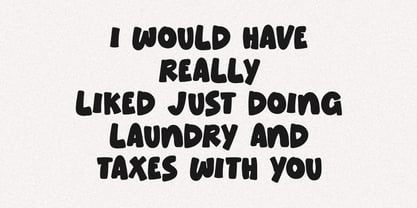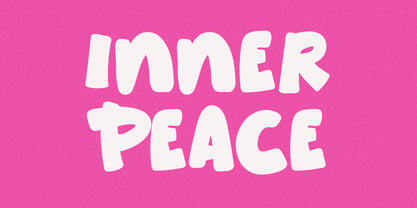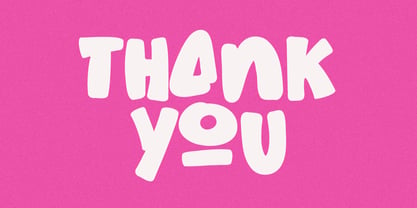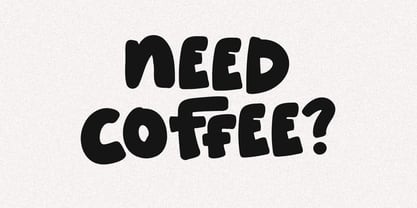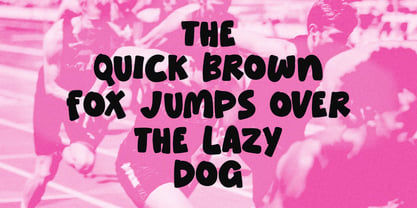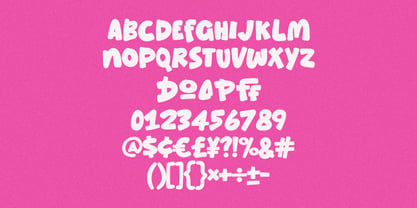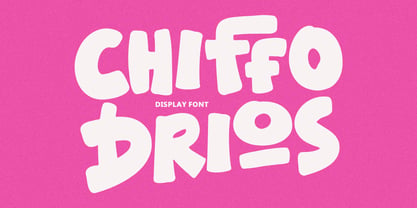
MC Chiffo Drios
by Maulana Creative
The MC Chiffo Drios Font Family was designed by Gilang Maulana and published by Maulana Creative. MC Chiffo Drios contains 1 styles. More about this family
Chiffo Drios is a playful and chunky display font designed to inject an immediate dose of joy and personality into your creative projects. With its bold, rounded shapes and slightly whimsical charm, this font is perfect for making a strong, memorable statement. Bold & Chunky Design, instantly grabs attention and creates a friendly, approachable feel. Playful Aesthetic, ideal for projects targeting a youthful audience or aiming for a lighthearted, fun vibe. Versatile Use, excellent for branding, packaging, children's books, comics, posters, merchandise, social media graphics, and much more. Full Character Set, includes all uppercase letters, numbers, and a comprehensive range of punctuation and symbols, as demonstrated in the preview images. Whether you're crafting a catchy title, designing a sweet greeting card, or creating impactful product, Chiffo Drios will ensure your message stands out with maximum impact and delight. Grab Chiffo Drios today and start creating designs that are impossible to ignore!
Designers: Gilang Maulana
Foundry: Maulana Creative